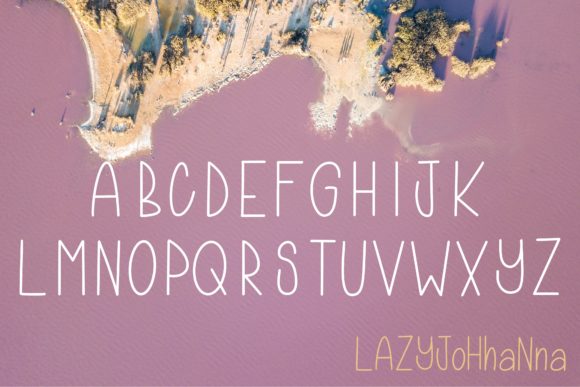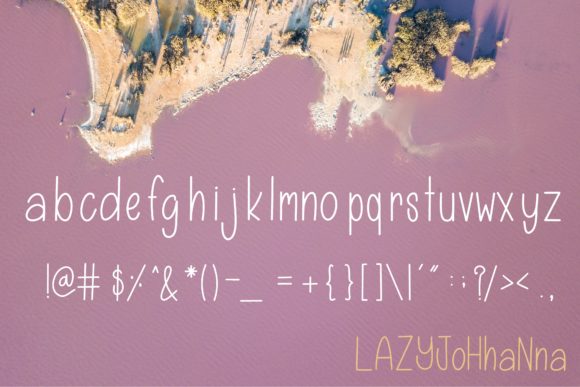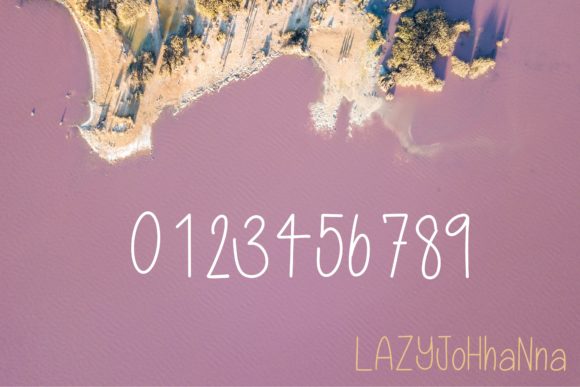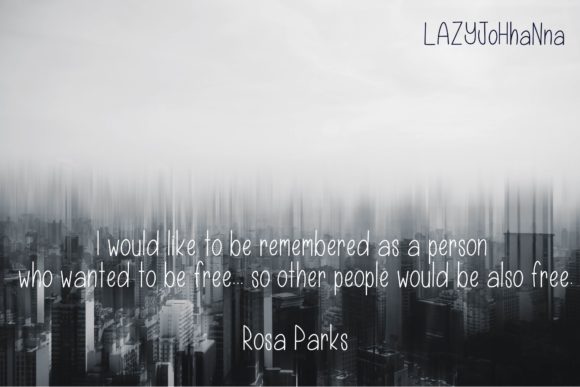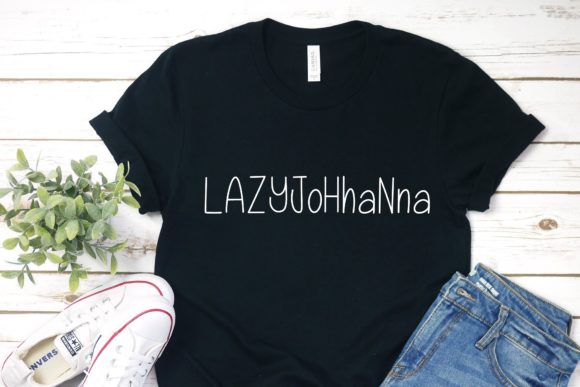
Introduction to Lazy Johhanna Font
Lazy Johhanna is a casual handwritten font.
It features an incredibly classic style, while still keeping a friendly feel Lazy Johhanna is the perfect font for making original and outstanding designs.
Key Features of Lazy Johhanna Font
Why Choose Lazy Johhanna Font?